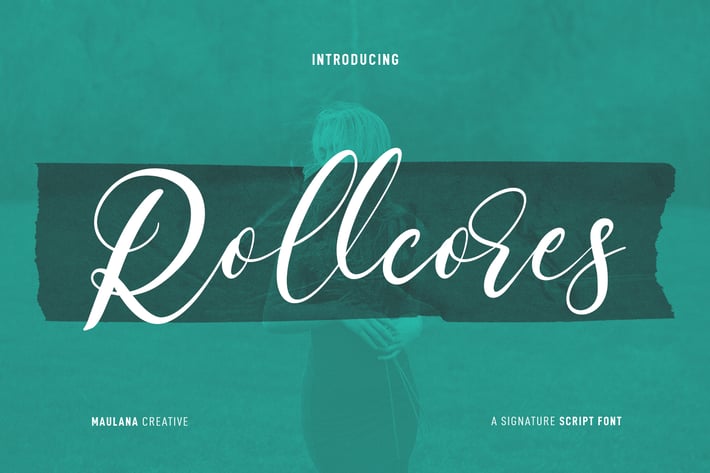
Rollcores Script Font
Rollcores is a modern beauty signature script font. With high contrast stroke, fun character with a bit of ligatures and stylistic alternates. To give you an extra creative work. Rollcores font support multilingual more than 100+ language. This font is good for logo design, Social media, Movie Titles, Books Titles, a short text even a long text letter and good for your secondary text font with sans or serif. Make a stunning work with Rollcores font.